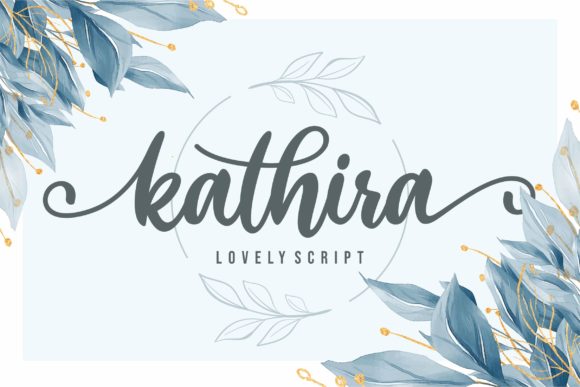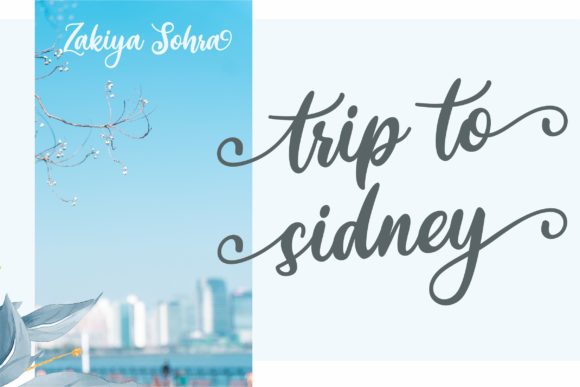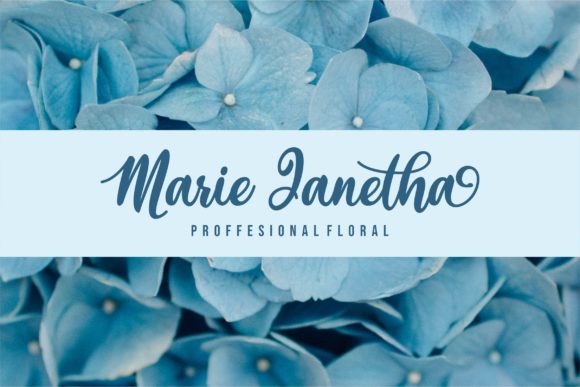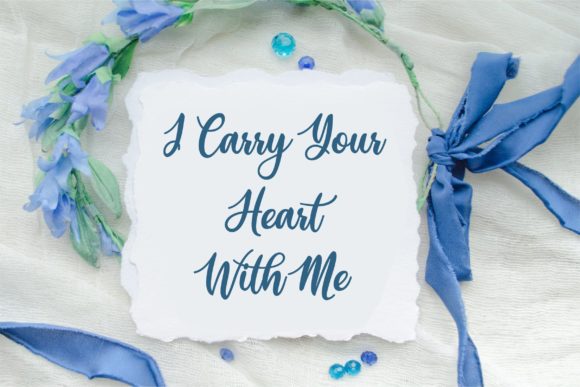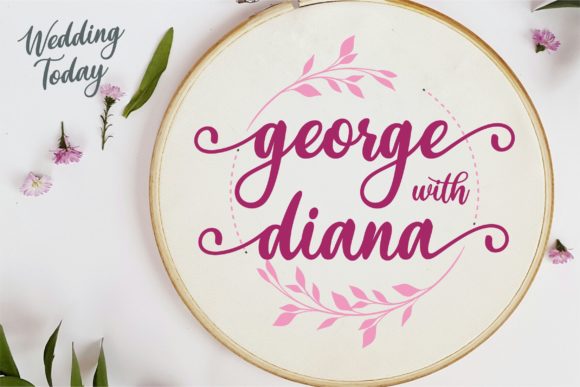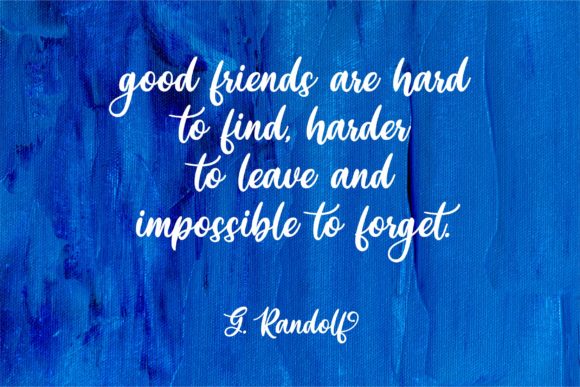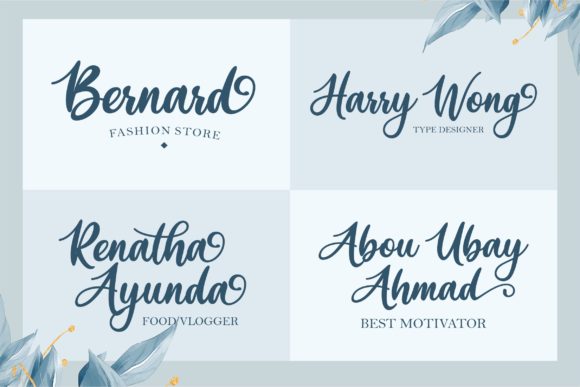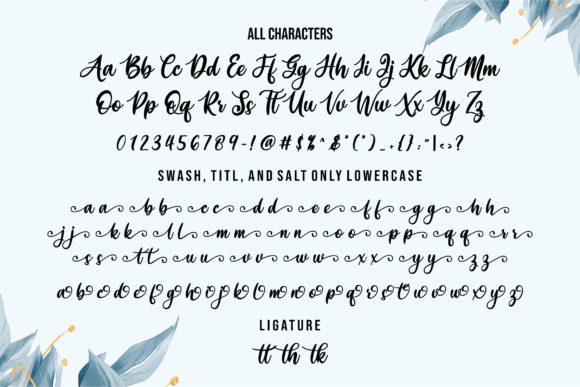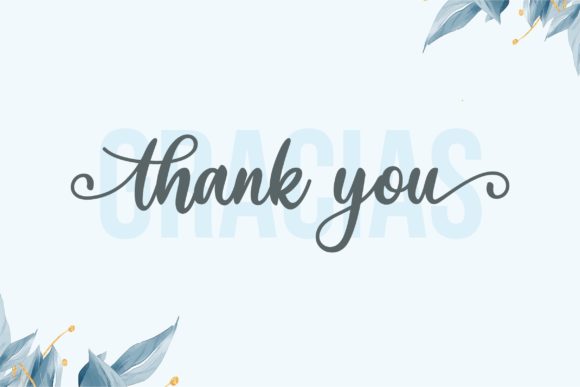
Kathira Font
About Kathira Font
Kathira is a lovely script font. It has a modern and elegant look and is perfect for logos, branding, invitations, photography, wedding stationary, labels, and every other design which needs an unique and luxurious touch.